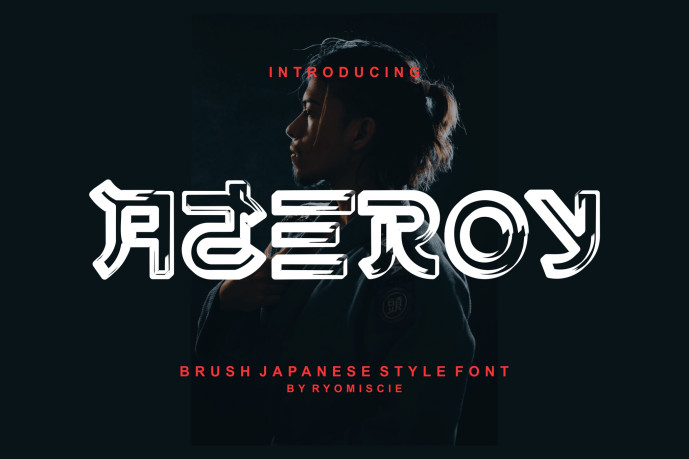
Azeroy – Brush Japanese Style Font
Designer: ryomiscie
Azeroy – Brush Japanese Style Font is a bold and authentic display font. The font is suitable for any branding project like logo, esport, and many more. outstanding in a wide range of contexts.